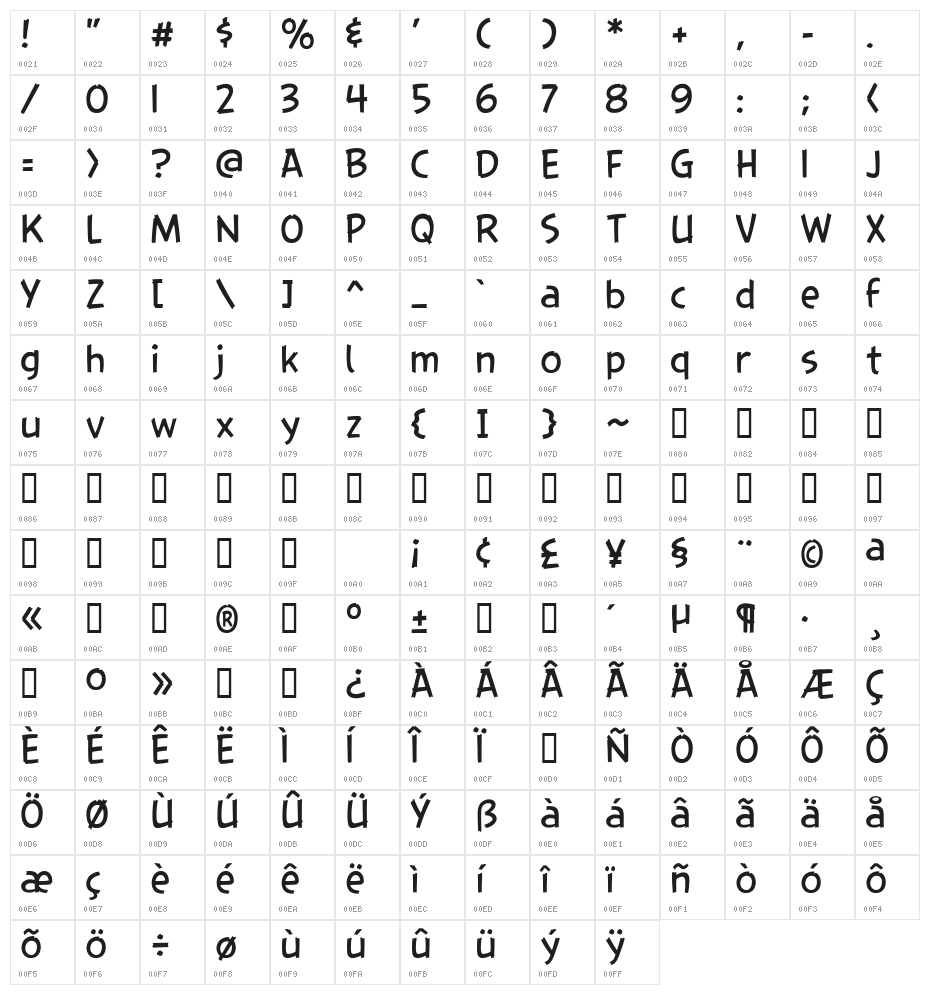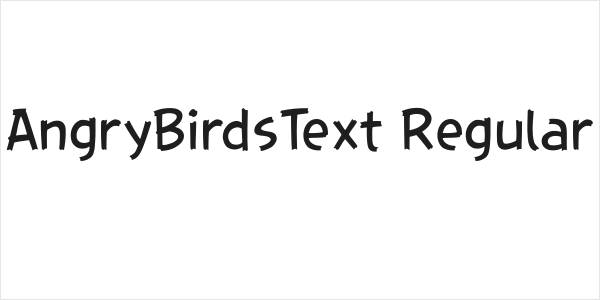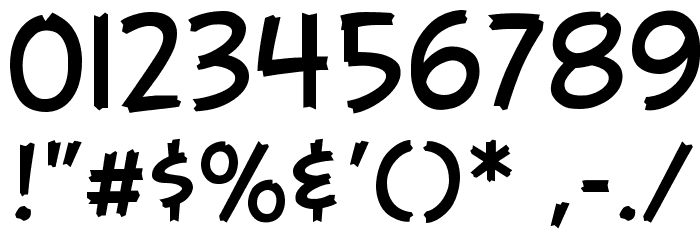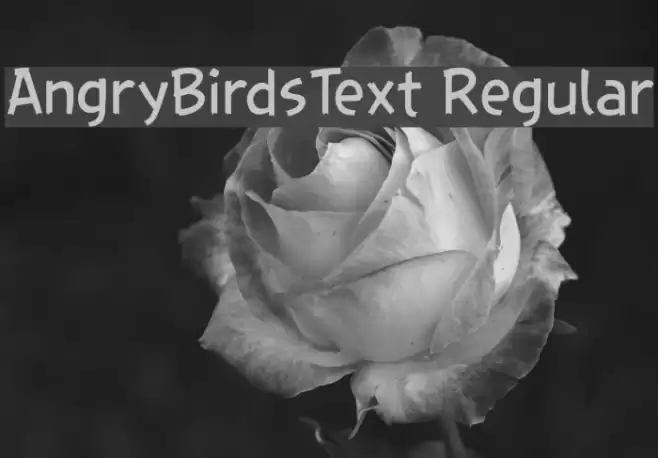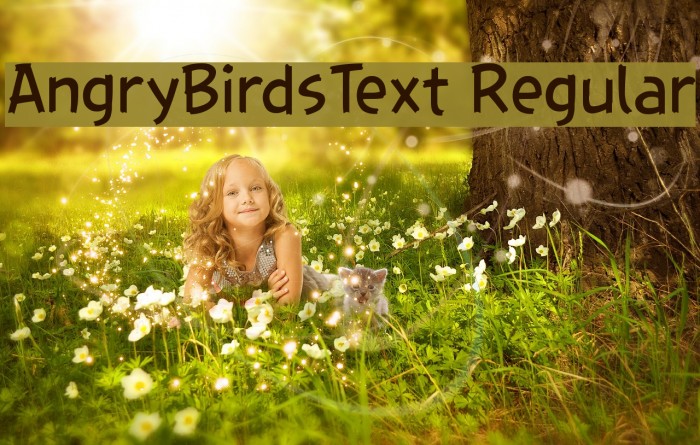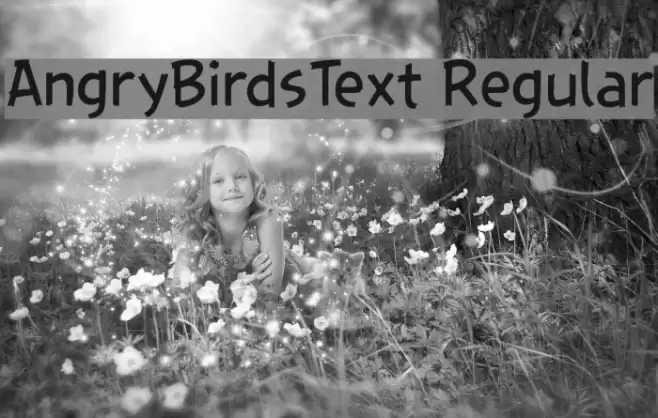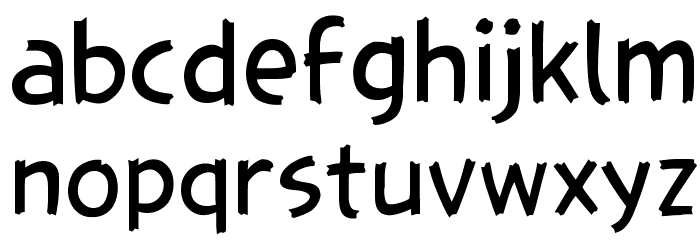
AngryBirdsText Regular Font
AngryBirdsText Regular Description
This font features a playful and bold design, characterized by its thick, uneven strokes and slightly irregular shapes. The letters have a hand-drawn appearance, giving them a whimsical and energetic feel. The uppercase and lowercase letters maintain a consistent style, with rounded edges and a slight tilt that adds to the dynamic look. Numbers and special characters follow the same playful aesthetic, making the font suitable for projects that require a fun and informal touch. The overall style is reminiscent of cartoon or comic book lettering, making it ideal for creative and lighthearted applications.
| Overall Style | Playful, Whimsical |
| Proposed Projects | Ideal for children's books, game titles, posters, and any project needing a fun, informal touch. |